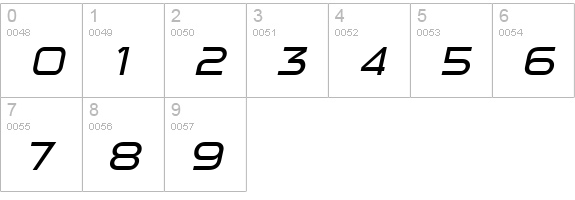
Sui Generis Light Italic Font Details
Sui Generis Light Italic is a refined, elegant, italic variant in the Sui typeface family \xE2\x80\x94 well suited to elegant body text, refined sub-headings, and luxury branding.
Sui Generis Light Italic font is a versatile and elegant typeface that exudes sophistication and modernity. Its delicate curves and subtle slant make it a perfect choice for adding a touch of style to any design project. The light weight of this font gives it a refined and airy quality, making it ideal for conveying a sense of elegance and grace. What sets Sui Generis Light Italic font apart is not only its aesthetic appeal but also the fact that it is available for free download at FontsMarket.com. This means that you can easily access and use this beautiful font in your creative endeavors without any cost. Whether you are designing a website, creating promotional materials, or crafting a personal project, Sui Generis Light Italic font is a versatile and eye-catching choice that will elevate your design to the next level. Make sure to take advantage of this free offering and add a touch of sophistication to your work today.